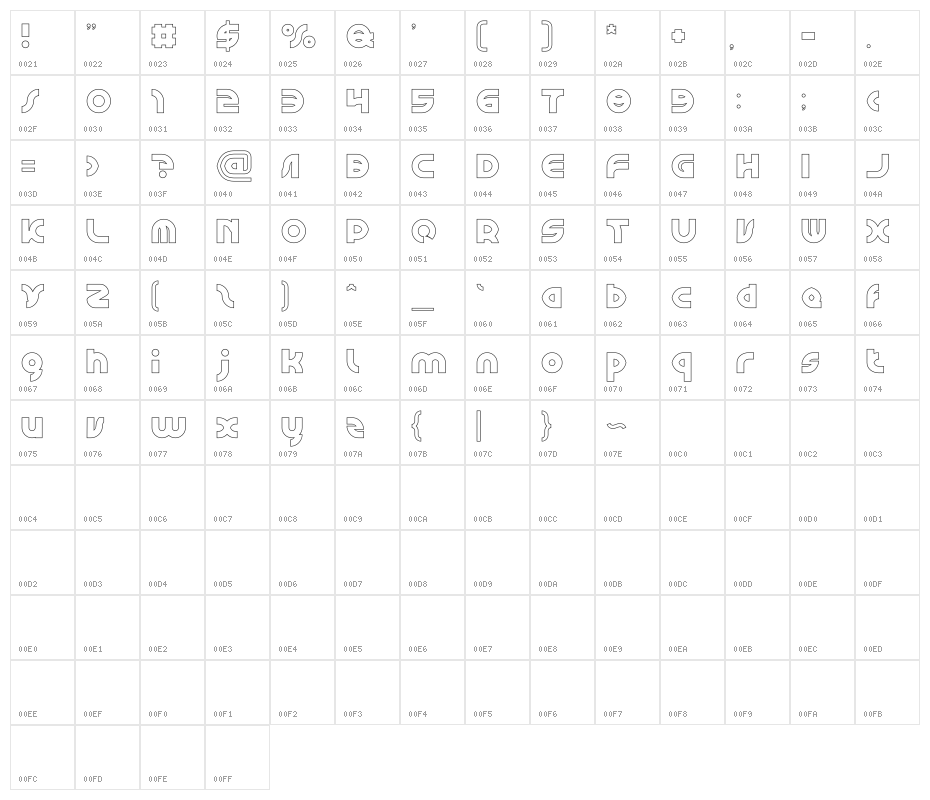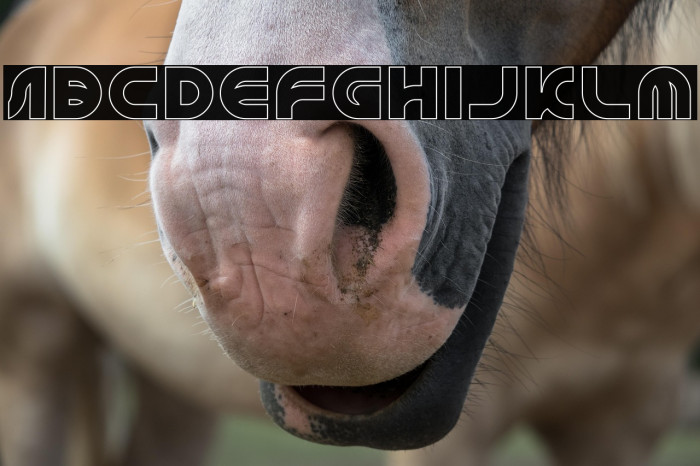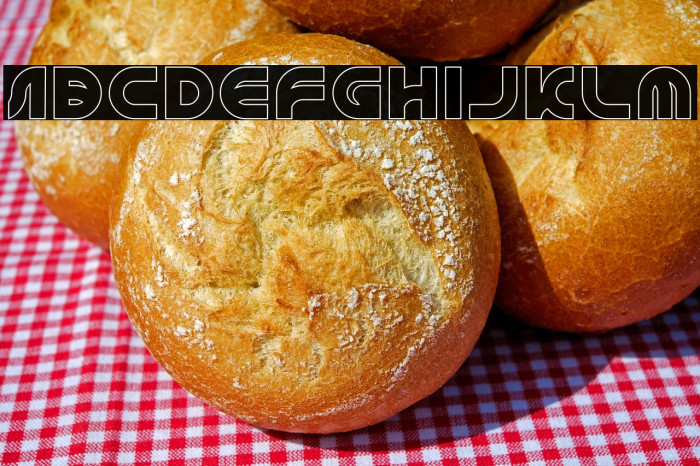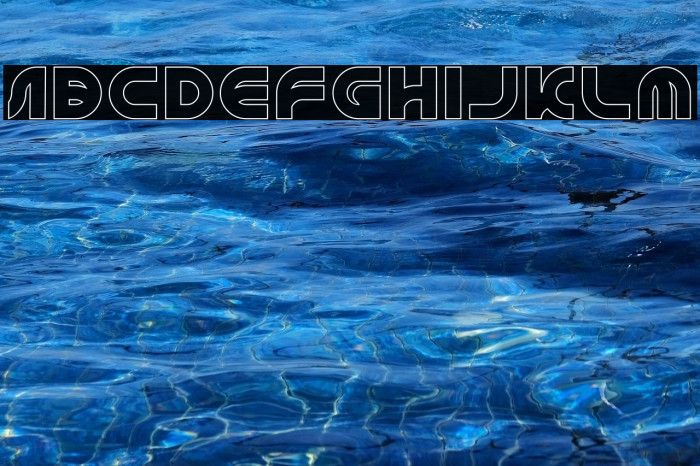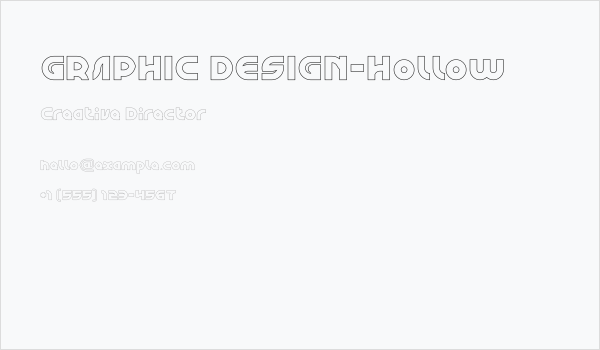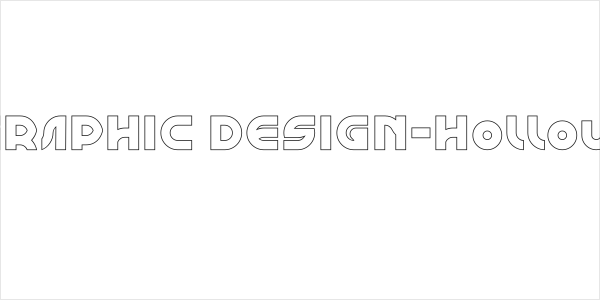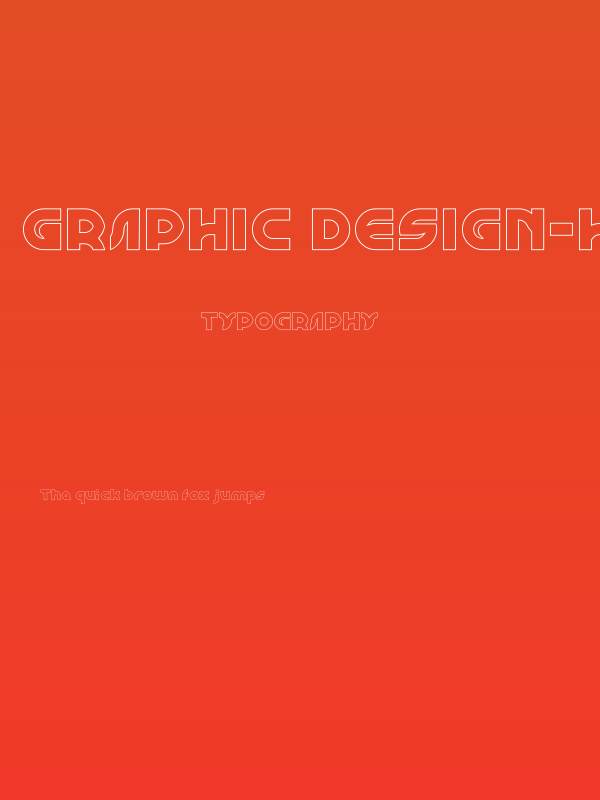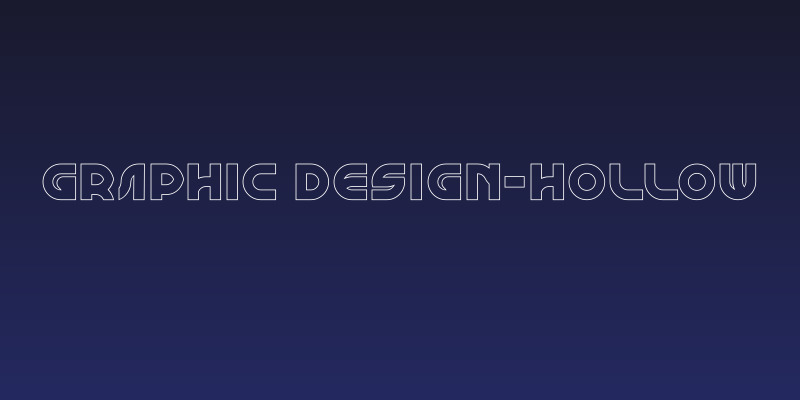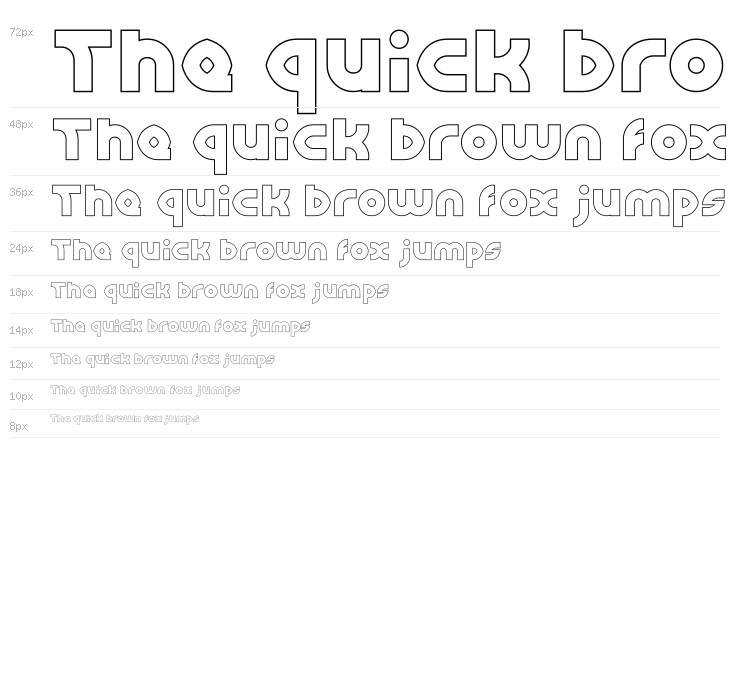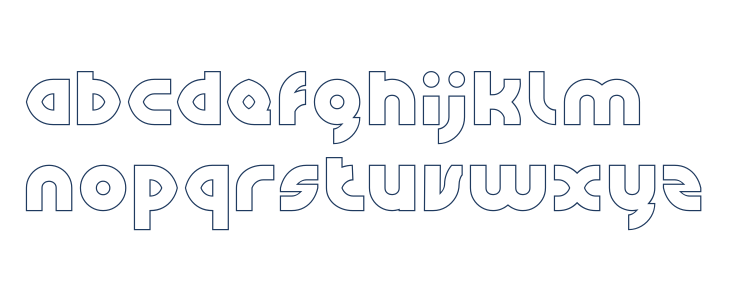
GRAPHIC DESIGN-Hollow Font
GRAPHIC DESIGN-Hollow Description
This font features a unique hollow design with a futuristic and geometric aesthetic. The characters are outlined, giving them a light and airy appearance while maintaining a bold presence. The uppercase and lowercase letters are consistent in style, with smooth curves and sharp angles that create a dynamic visual effect. The numbers and special characters follow the same design principles, ensuring uniformity across all glyphs. This font's distinct style makes it suitable for projects that require a modern and innovative look.
| Proposed Projects | Ideal for branding, posters, digital media, and futuristic-themed designs. |